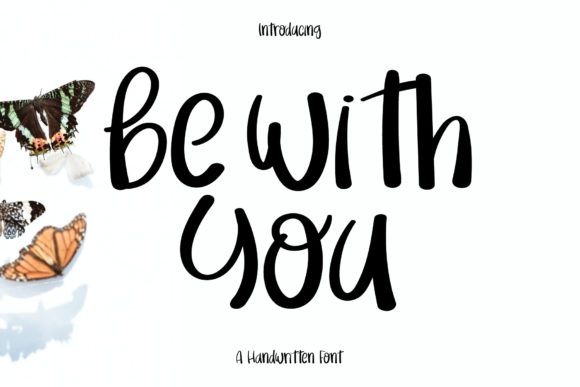
Be with You Font: The Ultimate Handwritten Font for Your Creative Projects
The world of typography is vast and exciting, with numerous font styles to choose from, each with its unique character and charm. If you’re looking for a font that exudes warmth, romance, and playfulness, then the Be with You Font is an excellent choice. In this article, we’ll explore the features and benefits of this beautiful handwritten font and how it can elevate your creative projects.
What is Be with You Font?
Be with You Font is a sweet, all-round, and flexible handwritten font that has gained popularity among designers and crafters. Its warm, romantic, and jolly tone makes it perfect for a wide range of projects, from wedding invitations and greeting cards to branding and advertising materials.
Key Features of Be with You Font
- Handwritten style: Be with You Font boasts a beautiful, handwritten style that adds a personal touch to your projects.
- Warm and romantic tone: The font’s warm and romantic tone makes it ideal for projects that require a touch of elegance and sophistication.
- Flexible and versatile: Be with You Font is highly versatile and can be used for a wide range of projects, from digital to print.
- Endless variations: With Be with You Font, you can experiment with various styles, sizes, and colors to create unique and eye-catching designs.
Why Choose Be with You Font?
With so many fonts available, why choose Be with You Font? Here are a few reasons why this font stands out:
Reasons to Choose Be with You Font
- Unique and eye-catching: Be with You Font is a unique and eye-catching font that will make your projects stand out from the crowd.
- Easy to read: Despite its handwritten style, Be with You Font is easy to read, making it perfect for body text and headlines.
- Customizable: Be with You Font is highly customizable, allowing you to adjust the font size, style, and color to suit your project’s needs.
- Support for multiple languages: Be with You Font supports multiple languages, making it a great choice for global brands and projects.
How to Use Be with You Font?
Be with You Font is easy to use and can be applied to various projects, including:
Use Cases for Be with You Font
- Wedding invitations and stationery: Add a touch of romance and elegance to your wedding invitations and stationery with Be with You Font.
- Greeting cards and gift tags: Create beautiful and personalized greeting cards and gift tags with Be with You Font.
- Branding and advertising: Use Be with You Font to create eye-catching branding and advertising materials that stand out from the crowd.
- Digital projects: Apply Be with You Font to your digital projects, such as social media graphics, blog posts, and email newsletters.
Tips and Tricks for Using Be with You Font
Here are some tips and tricks to help you get the most out of Be with You Font:
Tips and Tricks for Using Be with You Font
- Experiment with font sizes and styles: Don’t be afraid to experiment with different font sizes and styles to create visual interest and hierarchy.
- Pair with other fonts: Pair Be with You Font with other fonts to create a unique and eye-catching combination.
- Use colors and textures: Add colors and textures to your design to make it more visually appealing.
- Keep it simple: Don’t overcomplicate your design – keep it simple and elegant to let Be with You Font shine.
In conclusion, Be with You Font is a beautiful and versatile handwritten font that can elevate your creative projects. Its warm, romantic, and jolly tone makes it perfect for a wide range of projects, from wedding invitations and greeting cards to branding and advertising materials. With its endless variations and ease of use, Be with You Font is a great choice for designers and crafters looking to add a personal touch to their work.